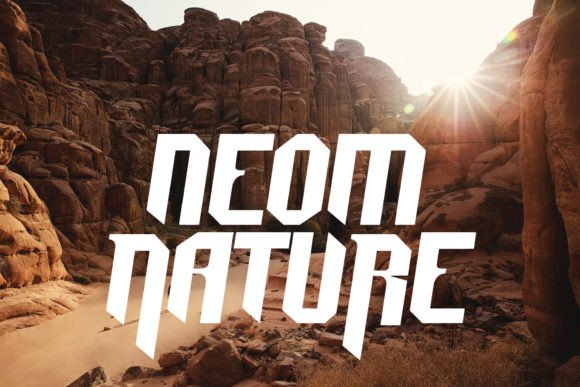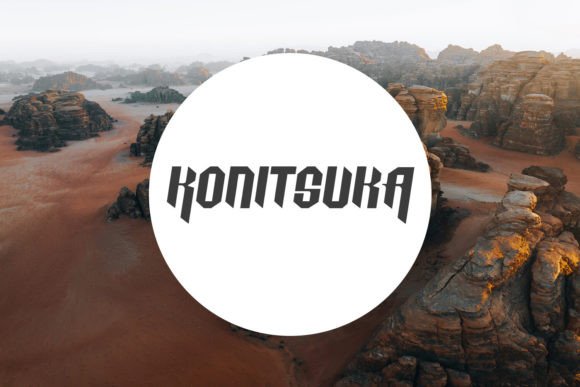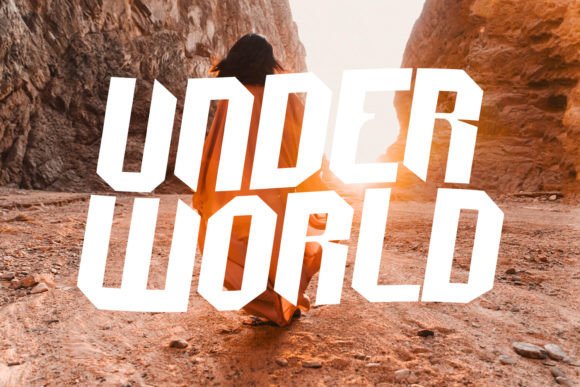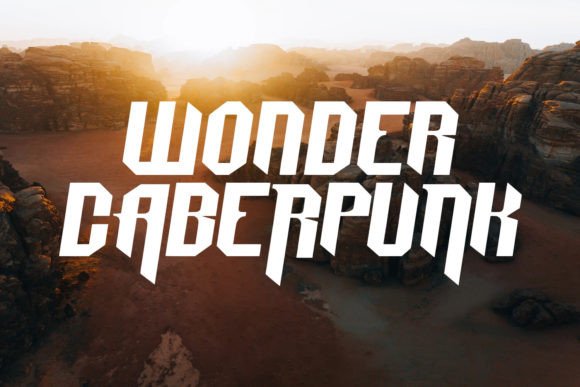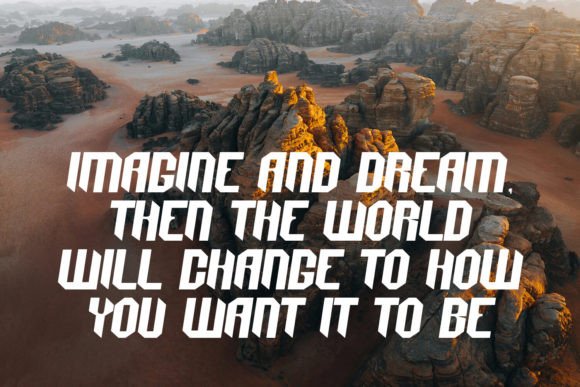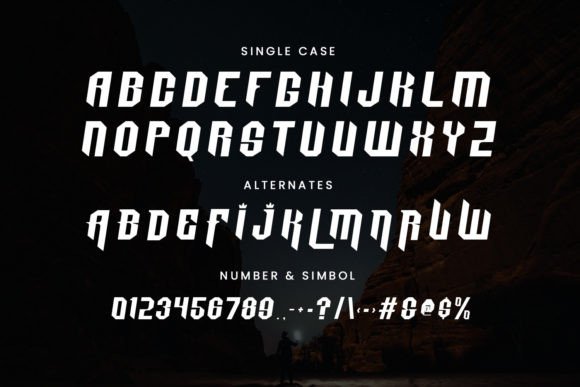
Introduction to Ifetur Font
Ifetur is an incredibly cool and unique display font.
It has a modern yet whimsical style and it will undoubtedly immerse your designs into a magical world .
Key Features of Ifetur Font
Why Choose Ifetur Font?